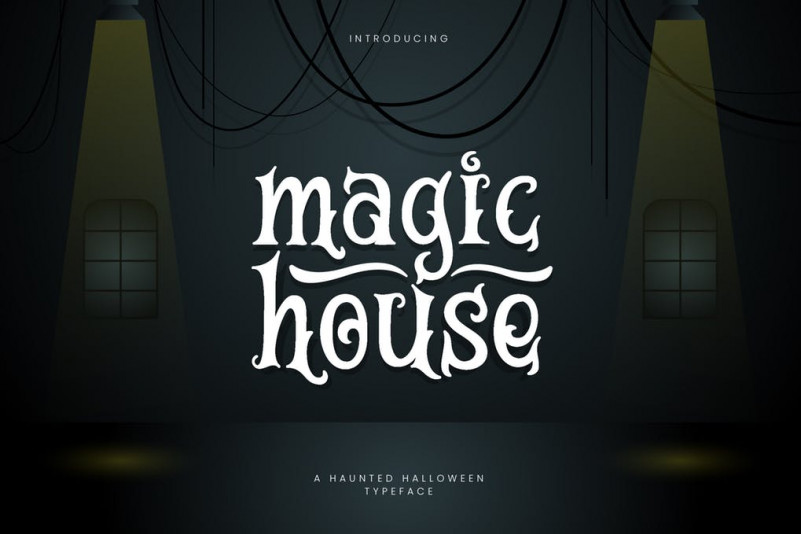
Magic House Font
Magic House Font is perfect for children's entertainment venues, fantasy theme parks, magical event planning, enchanted restaurant branding, mystical book covers, whimsical toy packaging, fairy tale illustration projects, magical workshop materials, and enchanting celebration campaigns.
What makes Magic House Font exciting is its enchanting ability to transform ordinary words into magical spells through whimsically crafted letterforms that seem to shimmer with fairy tale wonder and mystical charm. The font features playful, house-like elements with magical details that evoke the warmth and mystery of enchanted cottages and secret magical dwellings. Its delightfully magical character and storytelling appeal make it perfect for brands that want to communicate wonder, imagination, and the timeless magic that captures hearts and sparks childhood dreams while creating unforgettable experiences that transport audiences to realms of pure enchantment.
Magic House Font family includes various enchanting weights such as Regular, Bold, and possibly outlined variations, often featuring magical alternates and fairy tale decorative elements. The family may include mystical symbols, enchanted ornaments, and whimsical ligatures that enhance the font's magical aesthetic, providing designers with comprehensive options for creating spellbinding typographic compositions that capture the essence of fairy tale magic and childhood wonder.
This enchantingly whimsical typeface has gained recognition among fantasy entertainment brands and magical experience providers seeking authentic fairy tale typography solutions. Magic House Font Free Download provides an excellent opportunity to cast spells with this magical font before investment. The font's character set includes mystical symbols and enchanted glyphs that work perfectly for children's entertainment and fantasy industry applications. Whether you're designing for magical theme parks, fantasy gaming companies, or enchanted experience venues, Magic House Font delivers the fairy tale magic your project requires. Its versatile nature makes it suitable for various magical applications including children's theaters, fantasy bookstores, magical birthday party services, and whimsical lifestyle brands, ensuring your typography choices communicate wonder and enchantment while creating memorable brand experiences that celebrate the power of imagination and the enduring appeal of magical storytelling through its distinctively charming and authentically magical visual character.